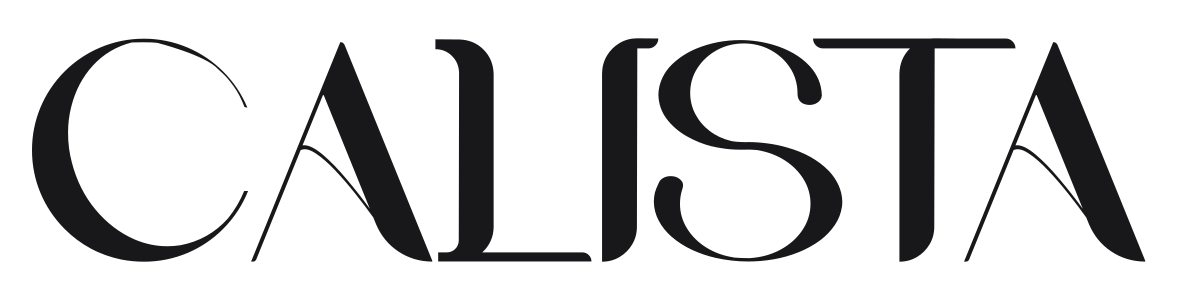
Calista
by Andang Prasetyo
Calista is a high-contrast modern serif with tall, condensed proportions and dramatic thin-to-thick stroke variation. Subtle split-stem details on select characters give it a contemporary edge beyond a straight Didone revival. It reads as luxury fashion at a glance.